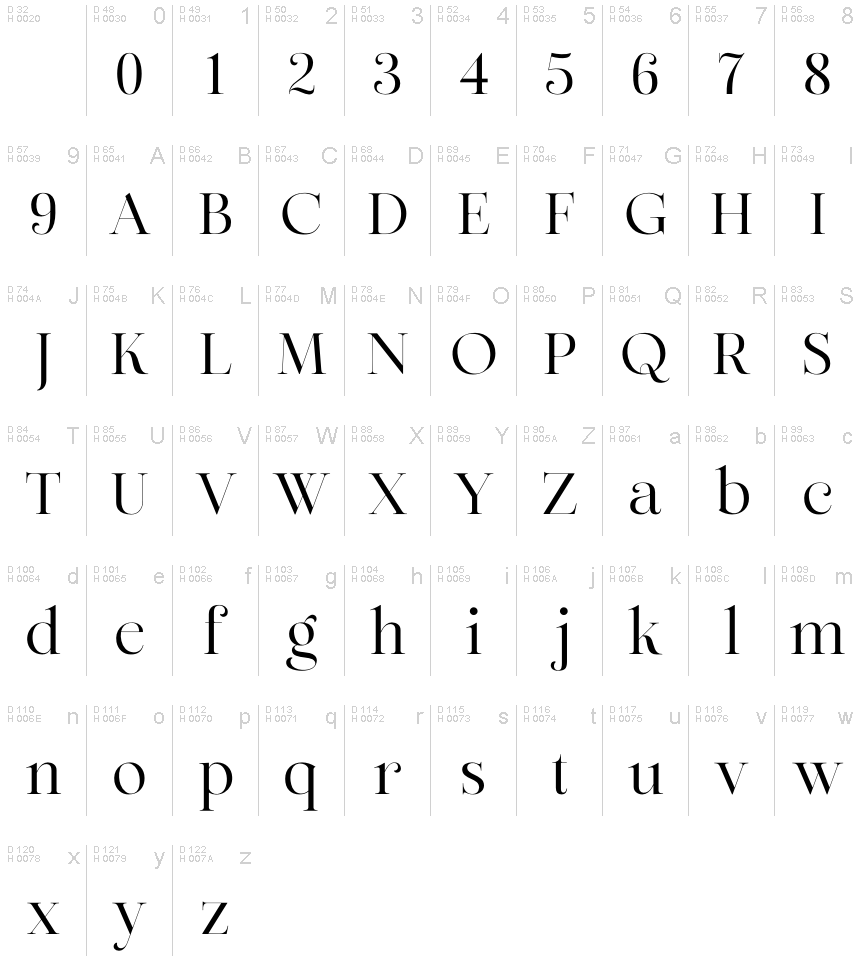
Zofiere, crafted by the talented ReyreyBlue, is a serif font that exudes elegance and sophistication. With its graceful curves and refined serifs, it strikes a balance between classic beauty and contemporary flair. The font's distinctive letters boast an artistic touch that can bring a luxurious feel to any project.
Ideal for those seeking to impart a sense of high-end style, Zofiere is perfectly suited for branding, editorial design, and invitations where its unique characteristics can truly shine. Its aesthetic charm ensures that any text it graces will capture attention with an air of exclusivity and finesse.